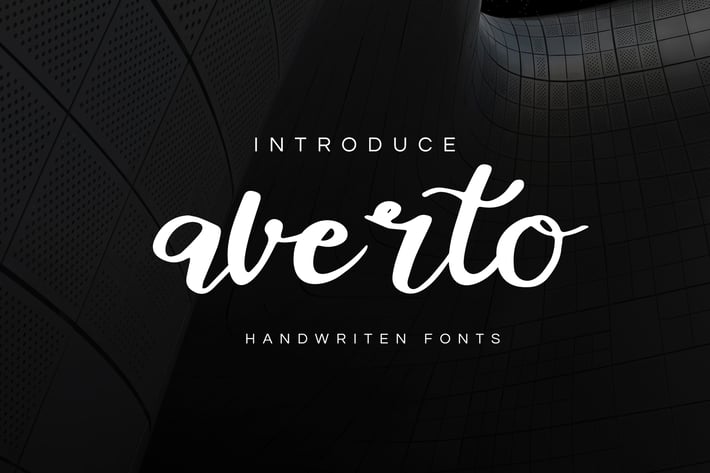
Averto - Handwritten Script Font
Averto handwritten script font with a clear style and dramatic movement. This font is great for your next creative project.
Averto is perfect for any project design like logo, wedding designs, social media posts, advertisements, product packaging, product designs, label, photography, watermark, invitation, stationery or etc